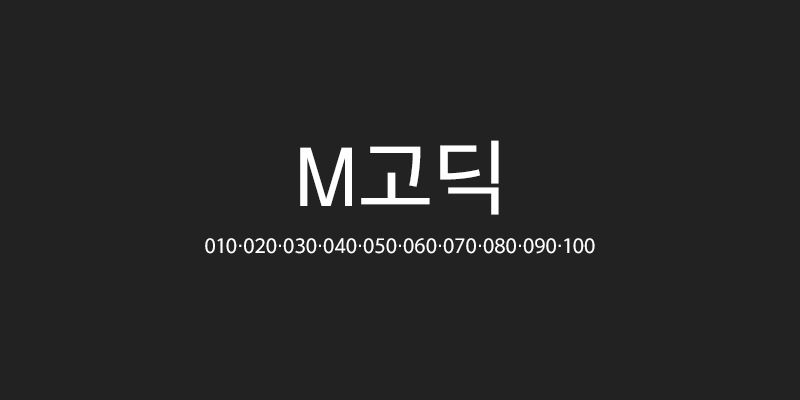
210 MGothic Font Free Download is a clean and modern Korean gothic (sans-serif) typeface that emphasizes readability, structure, and versatility. With its neat, straight lines and uniform stroke width, this font is ideal for a variety of design applications including UI/UX design, signage, editorial content, branding, and digital interfaces—especially where legibility and a contemporary aesthetic are key.
Designed with clarity in mind, 210 MGothic Font supports Hangul characters with precision and balance, making it perfect for both display and body text. It offers a neutral, professional tone that adapts well to everything from corporate materials to creative layouts.